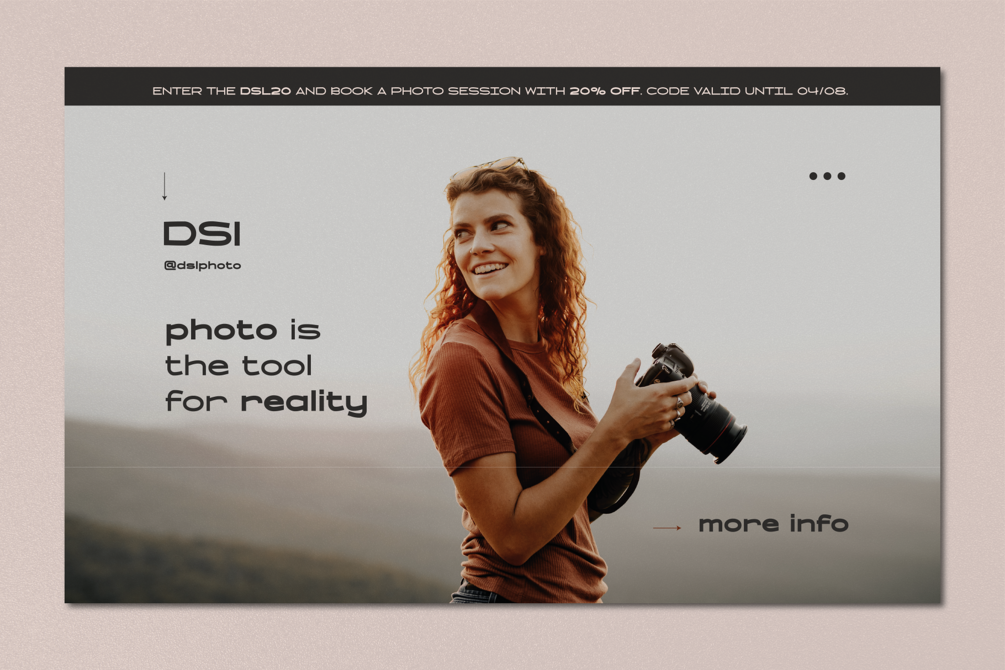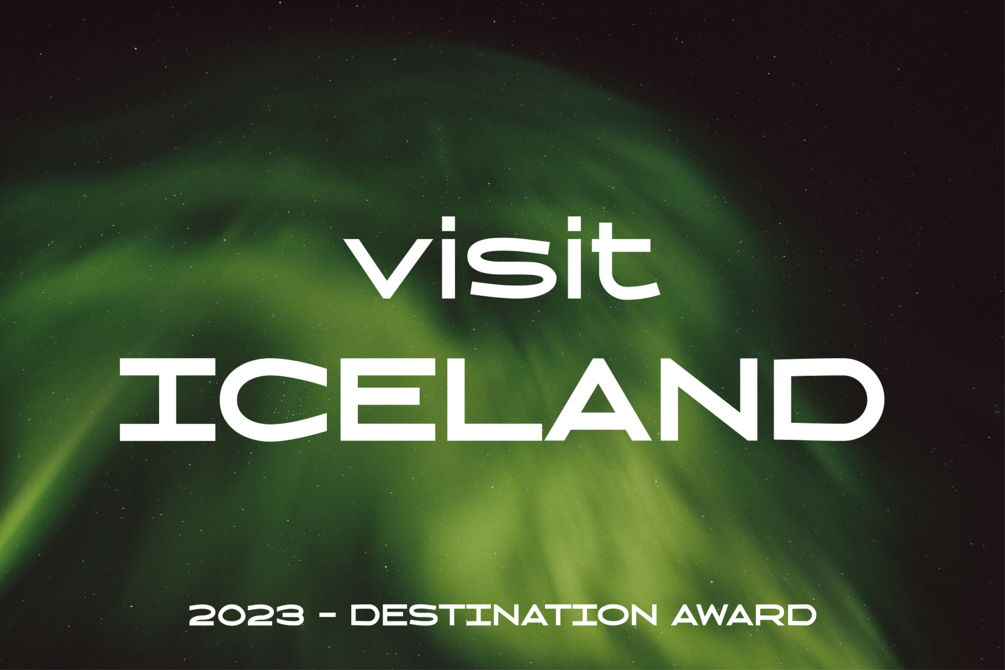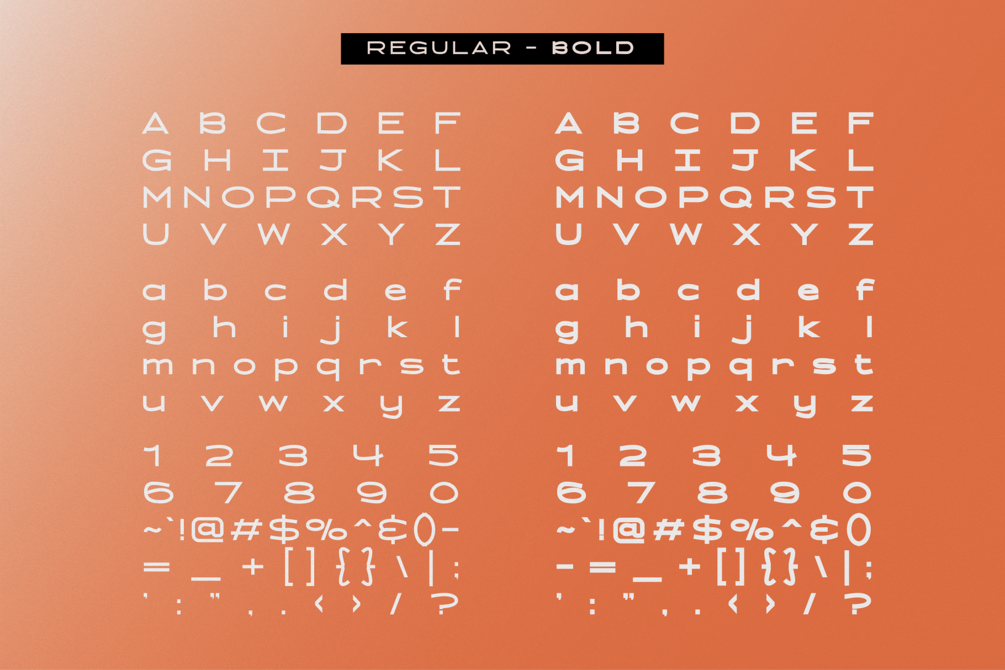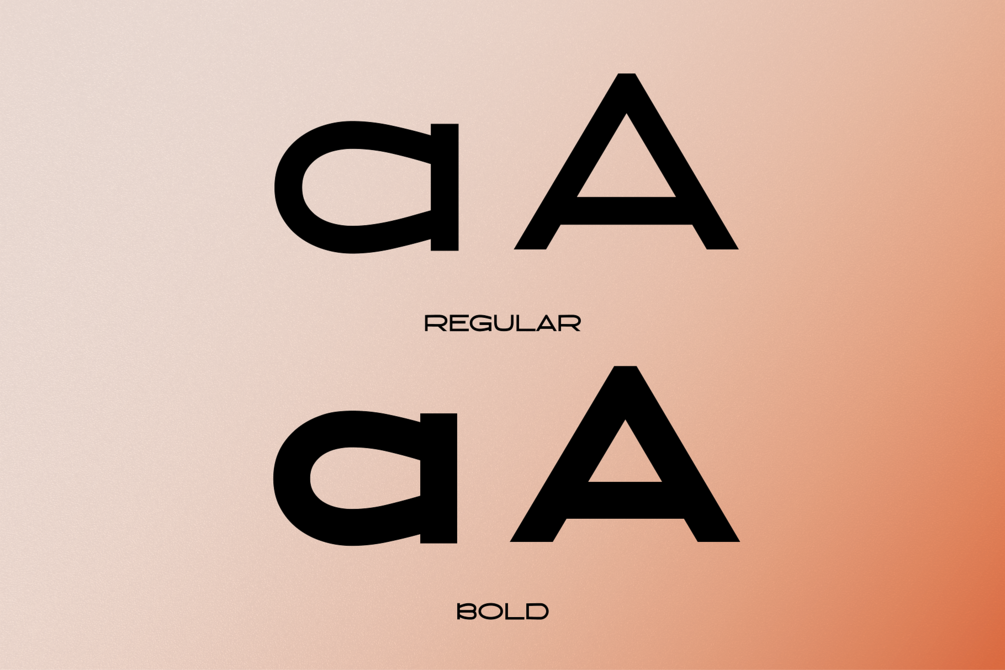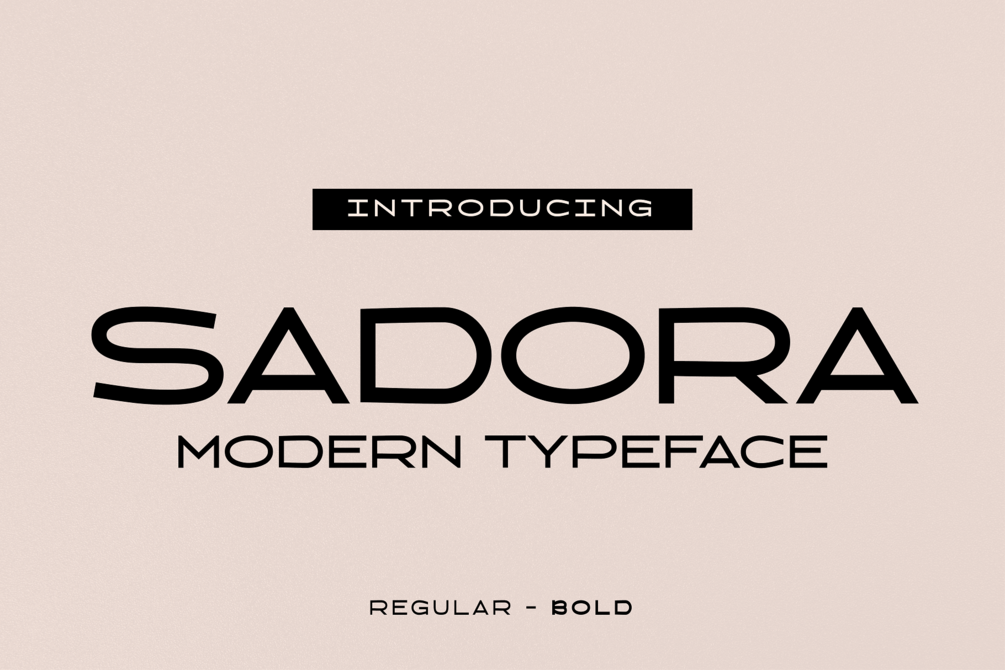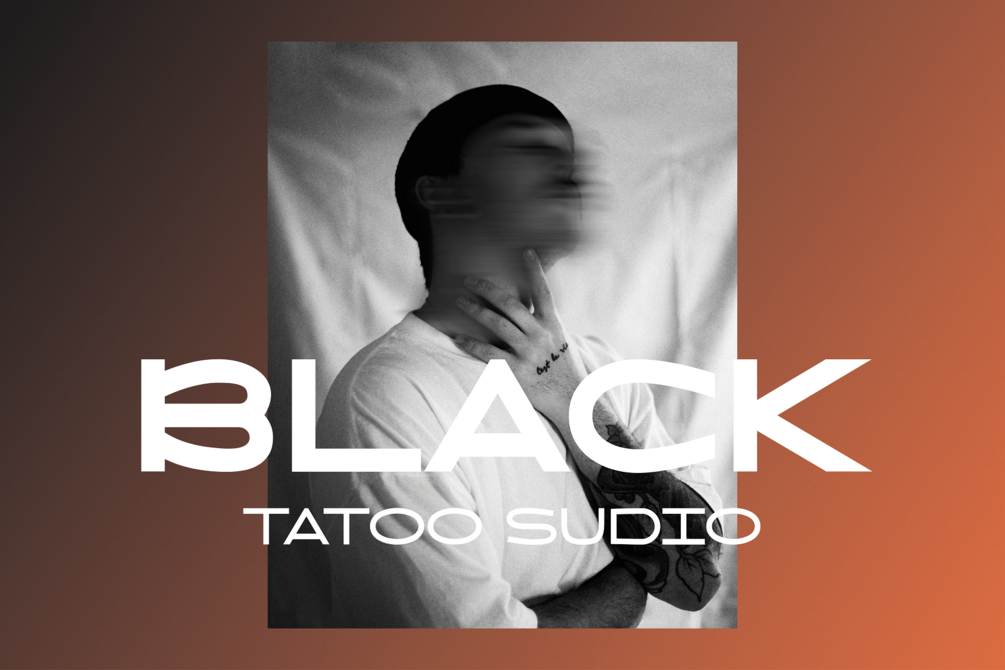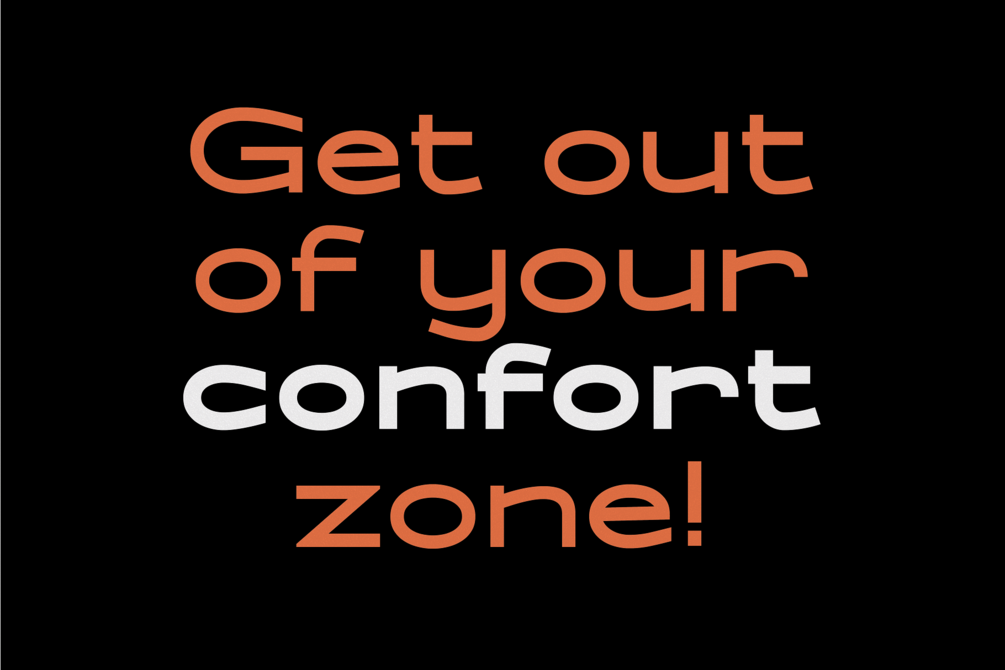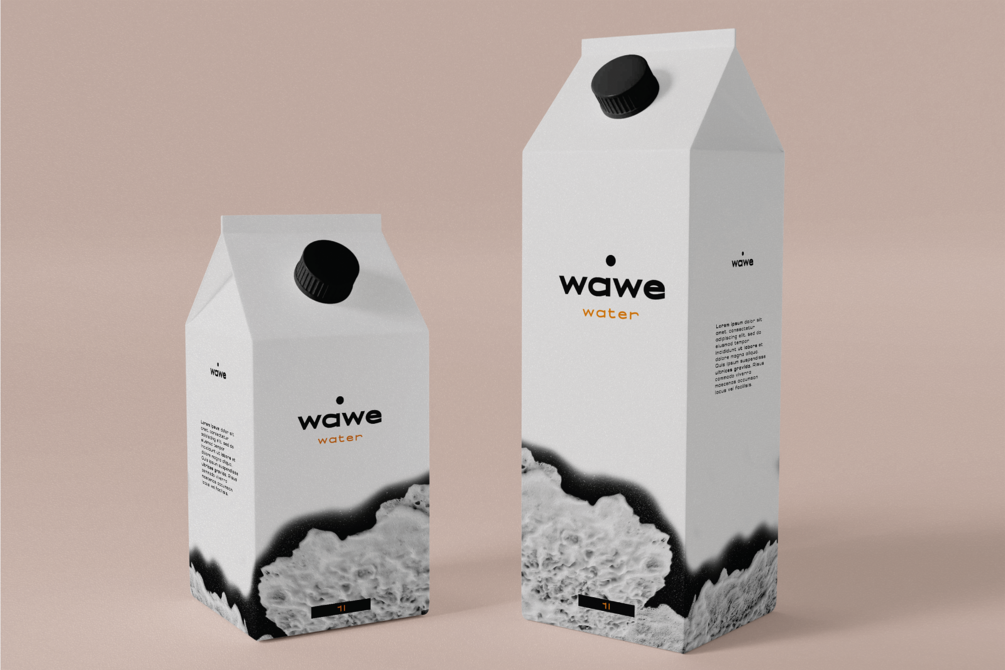
Sadora - Sophisticated Modern Sans
Sadora is a sleek and modern sans-serif font that combines elegant simplicity with a touch of personality. Its clean lines and geometric shapes create a sense of balance and order, while its pinched curves and distinctive vertical terminals add a subtle touch of uniqueness.
Sadora's clear and legible letterforms make it ideal for use in a variety of settings, from editorial design to branding and advertising. This versatile typeface is equally at home in digital and print formats, and its timeless design ensures that it will remain fresh and contemporary for years to come.
Whether you're creating a website, designing a logo, or crafting a marketing campaign, Sadora is the perfect choice for anyone looking to make a lasting impression.